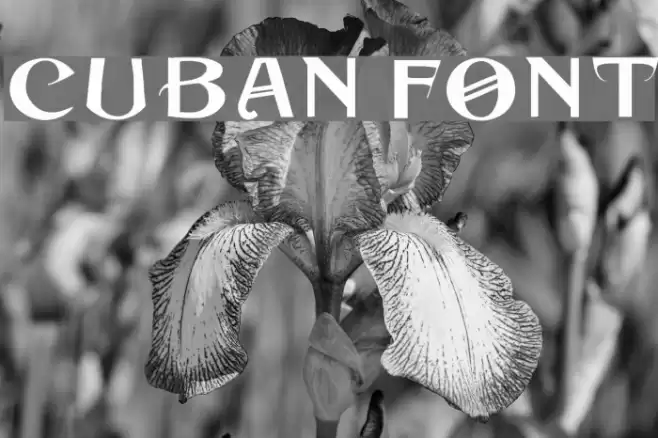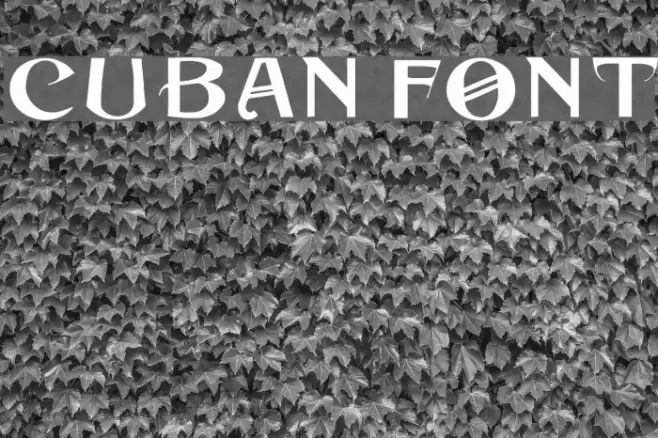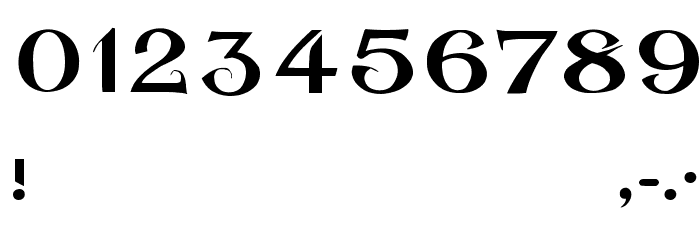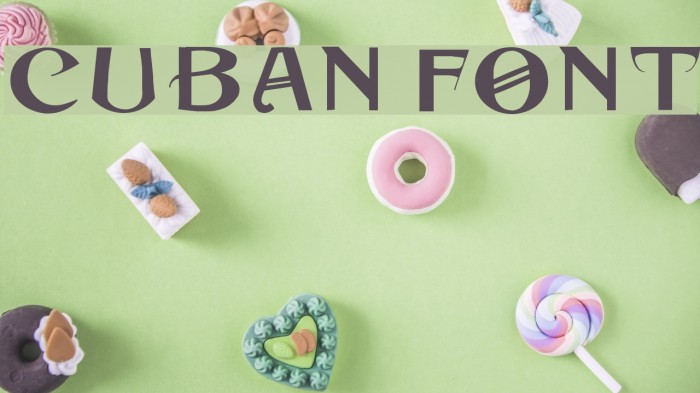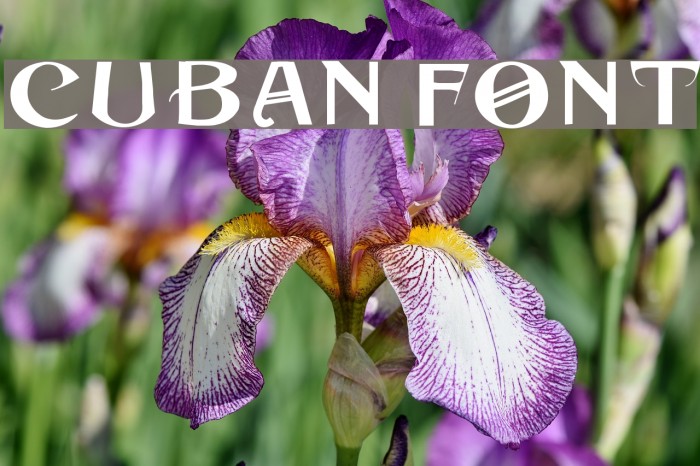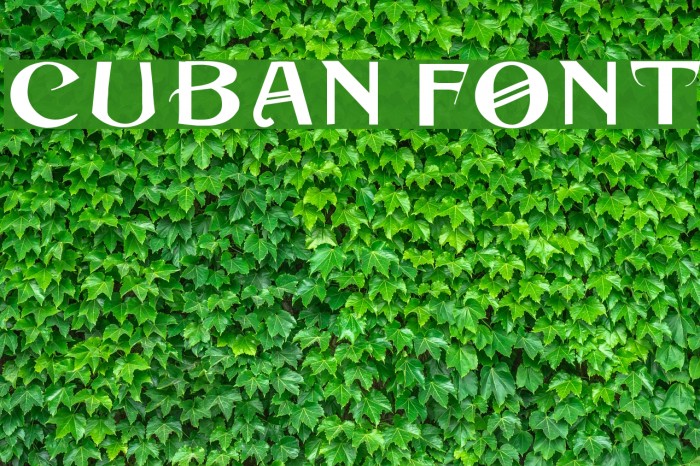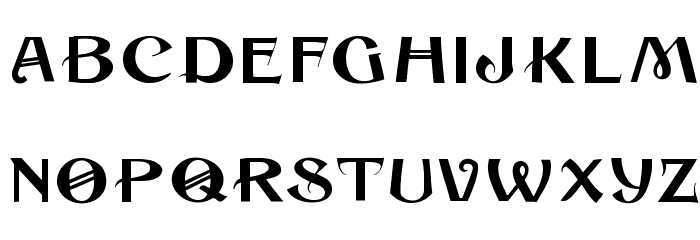
Cuban Font
Cuban Description
This font features a bold and decorative style with a unique flair in its letterforms. Each character is crafted with a distinct, artistic touch, incorporating sharp angles and curves that create a dynamic and eye-catching appearance. The uppercase letters are particularly striking, with some characters exhibiting a slight flourish or embellishment that adds to the overall aesthetic. The numerals and special characters maintain this decorative theme, ensuring consistency throughout. This font's design is both bold and expressive, making it suitable for projects that require a strong visual impact.
A bold, decorative font with artistic flair and dynamic letterforms from Uncategorized fonts.
- Proposed Projects: Ideal for branding, posters, headlines, and any creative projects that require a strong visual presence.